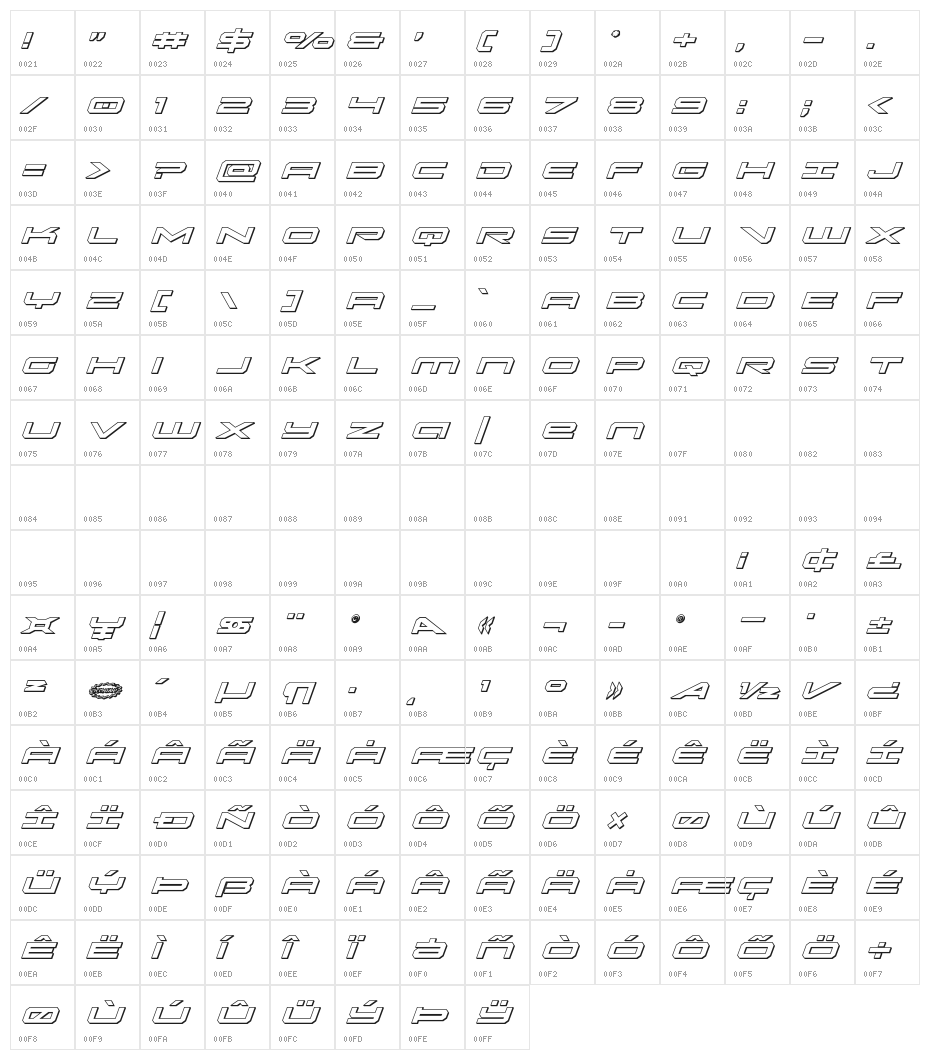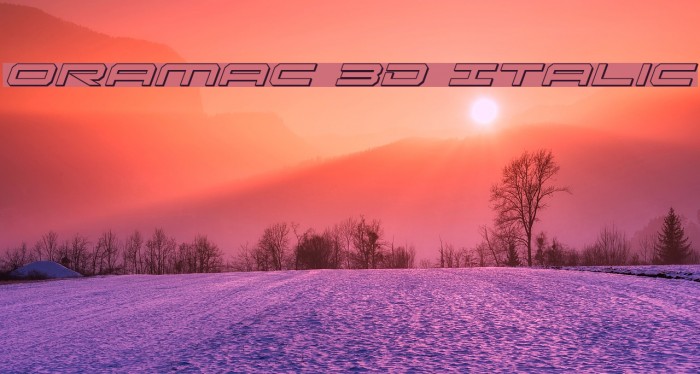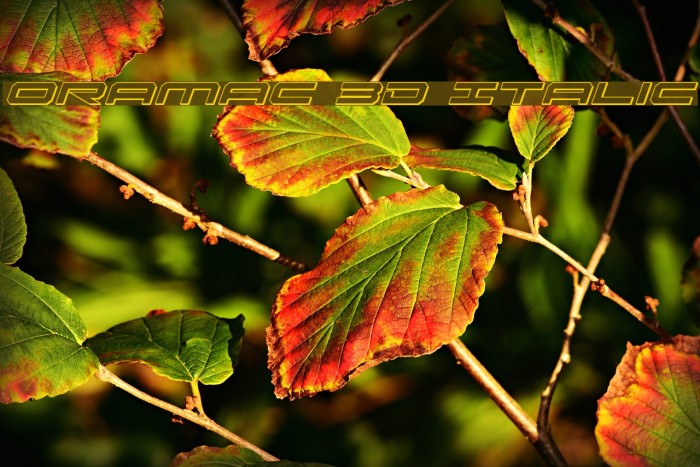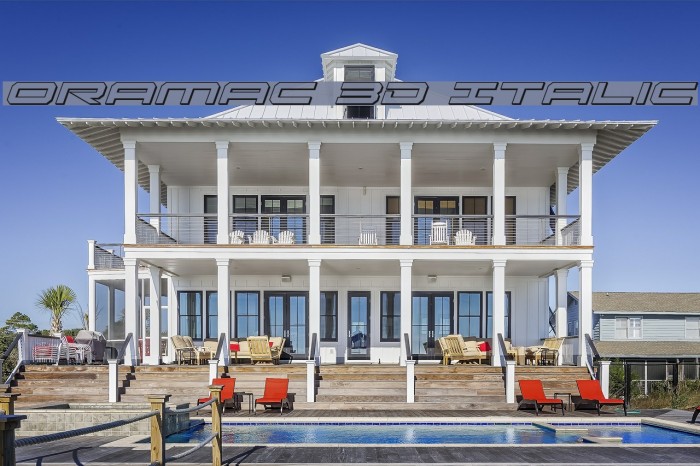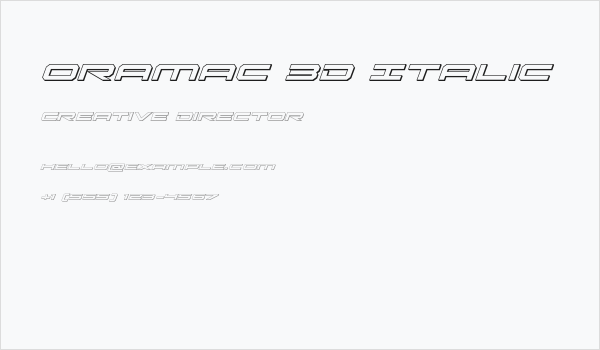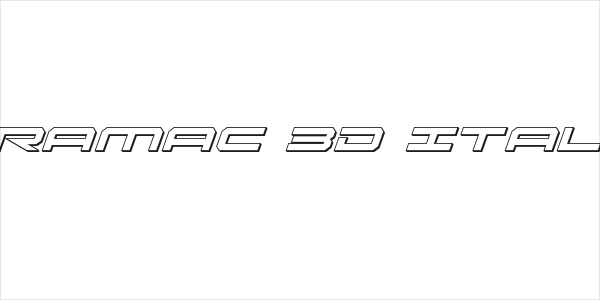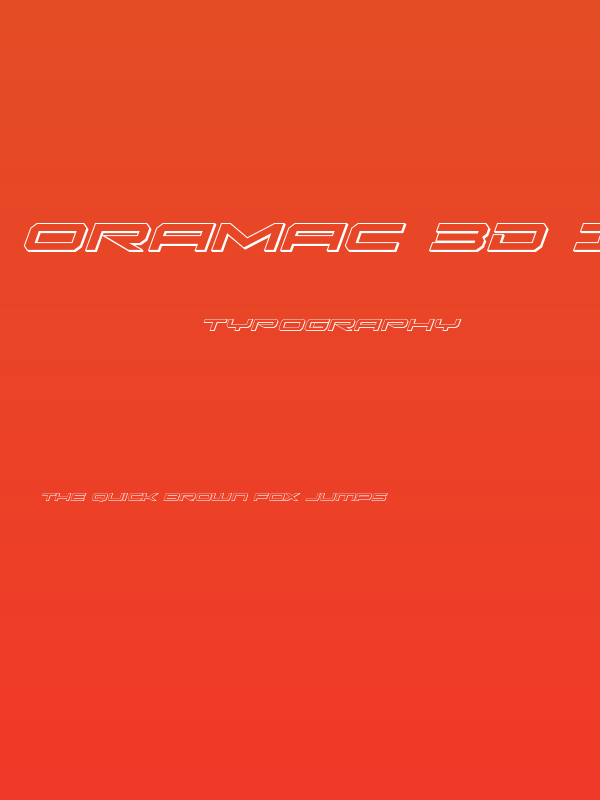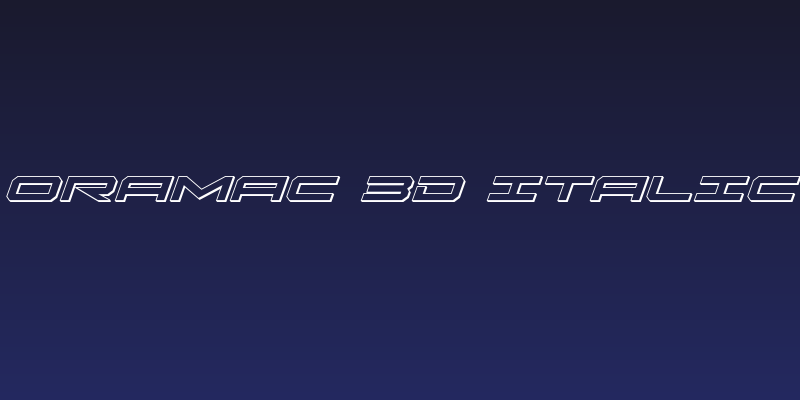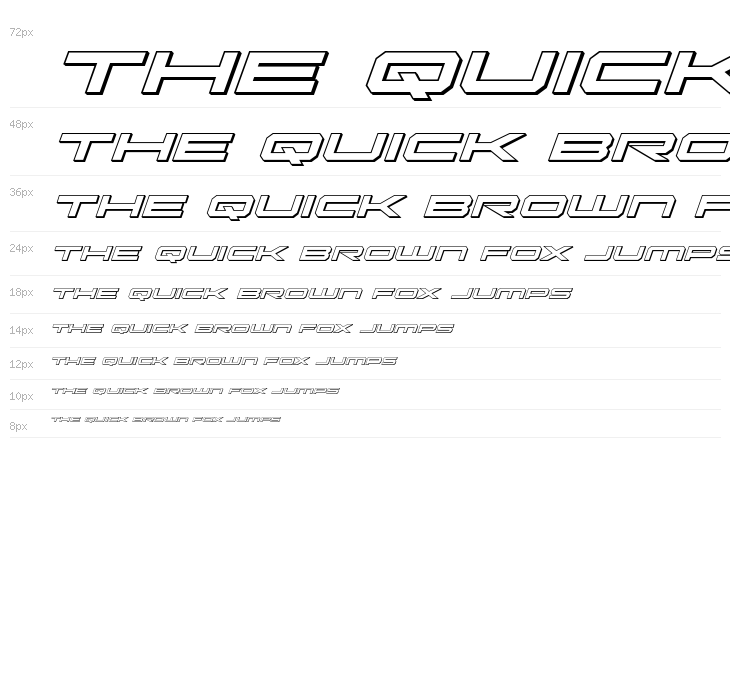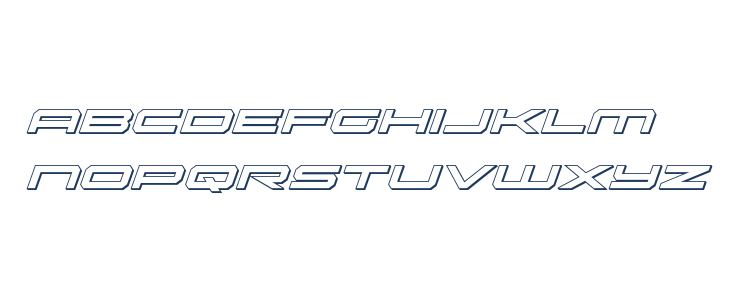
Oramac 3D Italic Font
Oramac 3D Italic Description
This font features a futuristic and dynamic design with a 3D effect, giving it a sense of depth and movement. The characters are outlined, creating a hollow appearance that enhances the three-dimensional look. The italic slant adds a sense of speed and modernity, making it ideal for projects that require a bold and innovative touch. The uppercase and lowercase letters maintain a consistent style, with angular and geometric shapes that contribute to its tech-inspired aesthetic. The numbers and special characters follow the same design principles, ensuring uniformity across all elements.
| Proposed Projects | Ideal for tech branding, video game titles, sci-fi posters, and modern advertisements. |